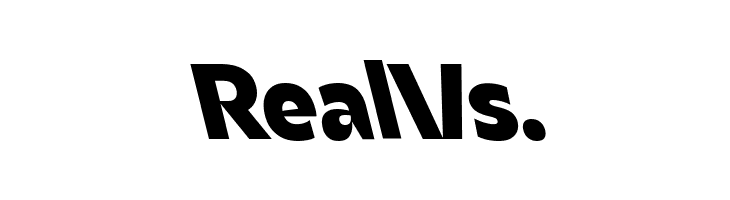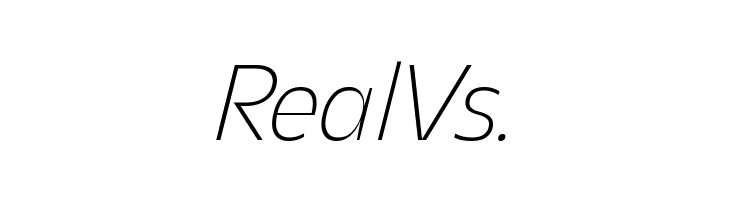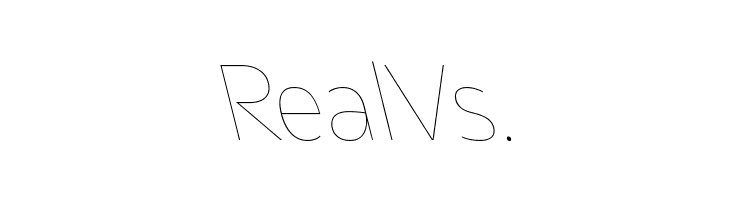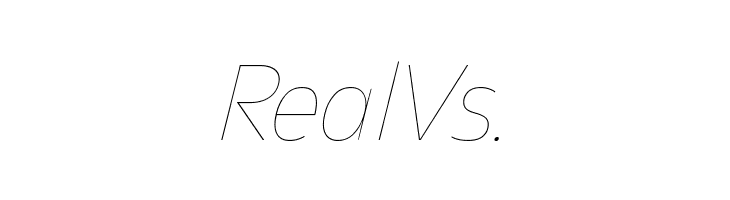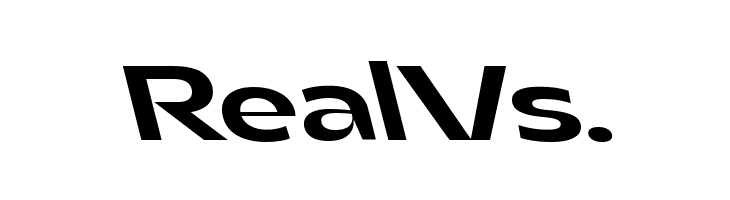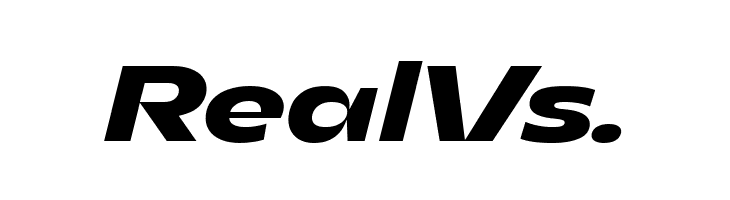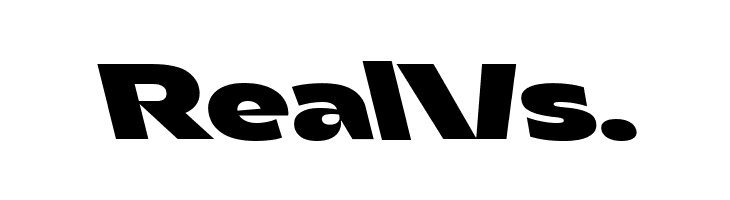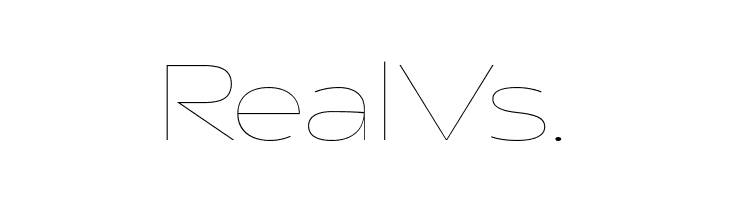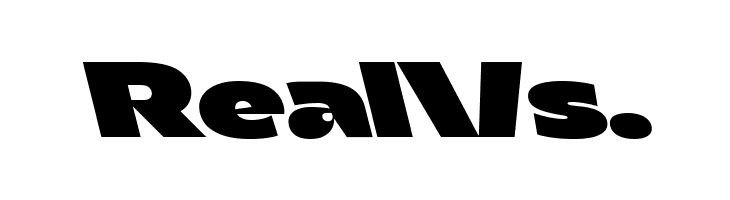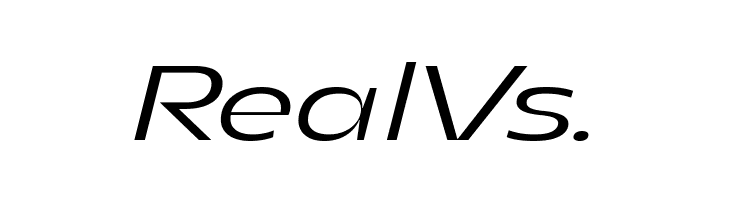
A modern, backslant font with clean lines and dynamic style.
A modern, italicized font with clean lines and balanced character spacing.
A modern, minimalist font with thin, clean lines and balanced spacing.
A thin, backslanted font with a modern and elegant style.
A sleek, thin, and italicized font with a modern and elegant style.
A bold, wide font with a modern geometric style.
A bold, wide font with a dynamic backslant, perfect for impactful designs.
A bold, wide, and italicized font with a modern and dynamic style.
A bold, wide typeface with thick strokes and a modern, impactful style.
A bold, wide font with a unique backslant, perfect for impactful headlines.
A bold, wide, and italicized font with a modern and dynamic style.
A modern, wide, and light geometric font with clean lines.
A modern, wide, light sans-serif font with a distinctive backslant.
A modern, wide, light italic font with sleek and dynamic styling.
A bold, modern font with a wide, geometric design.
A wide, medium-weight font with a distinctive backslant, perfect for modern designs.
A modern, wide, medium-weight italic font with a sleek design.
A modern, wide, and geometric font with clean lines and minimal contrast.
A modern, backslant font with wide, evenly spaced characters.
A modern, wide, and italic typeface with a sleek and dynamic appearance.
A modern, thin, and wide font with elegant, elongated letterforms.
A modern, thin, backslant font with a sleek, geometric design.
A modern, thin, italic font with wide spacing and elegant design.
A bold, wide font with a modern, geometric style.
A bold, wide, backslanted font with a modern and dynamic style.
A bold, wide, and italic font with a modern, dynamic style.
A sleek, modern font with clean lines and a minimalist aesthetic.
A modern, extra-light font with a backslant and wide letterforms.
A sleek, modern italic font with wide spacing and a light, airy appearance.
A bold, modern font with thick strokes and tight spacing, perfect for impactful designs.
A bold, backslanted font with a strong, modern appearance.
A bold, italic font with a dynamic and modern style.
A sleek, modern font with clean lines and a minimalist aesthetic.
A modern, backslanted font with thin, elongated characters and a sleek design.
A sleek, modern, and italicized font with thin strokes and a sophisticated style.